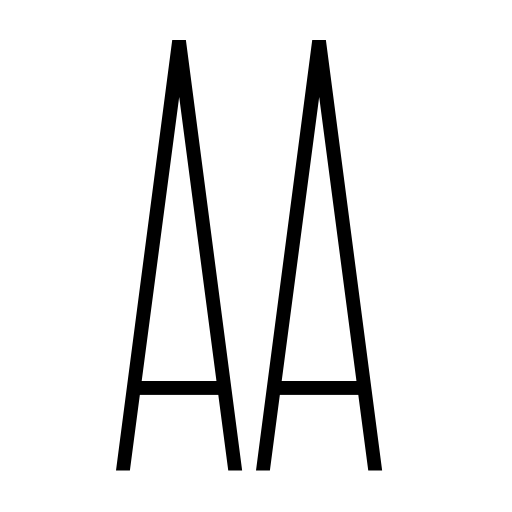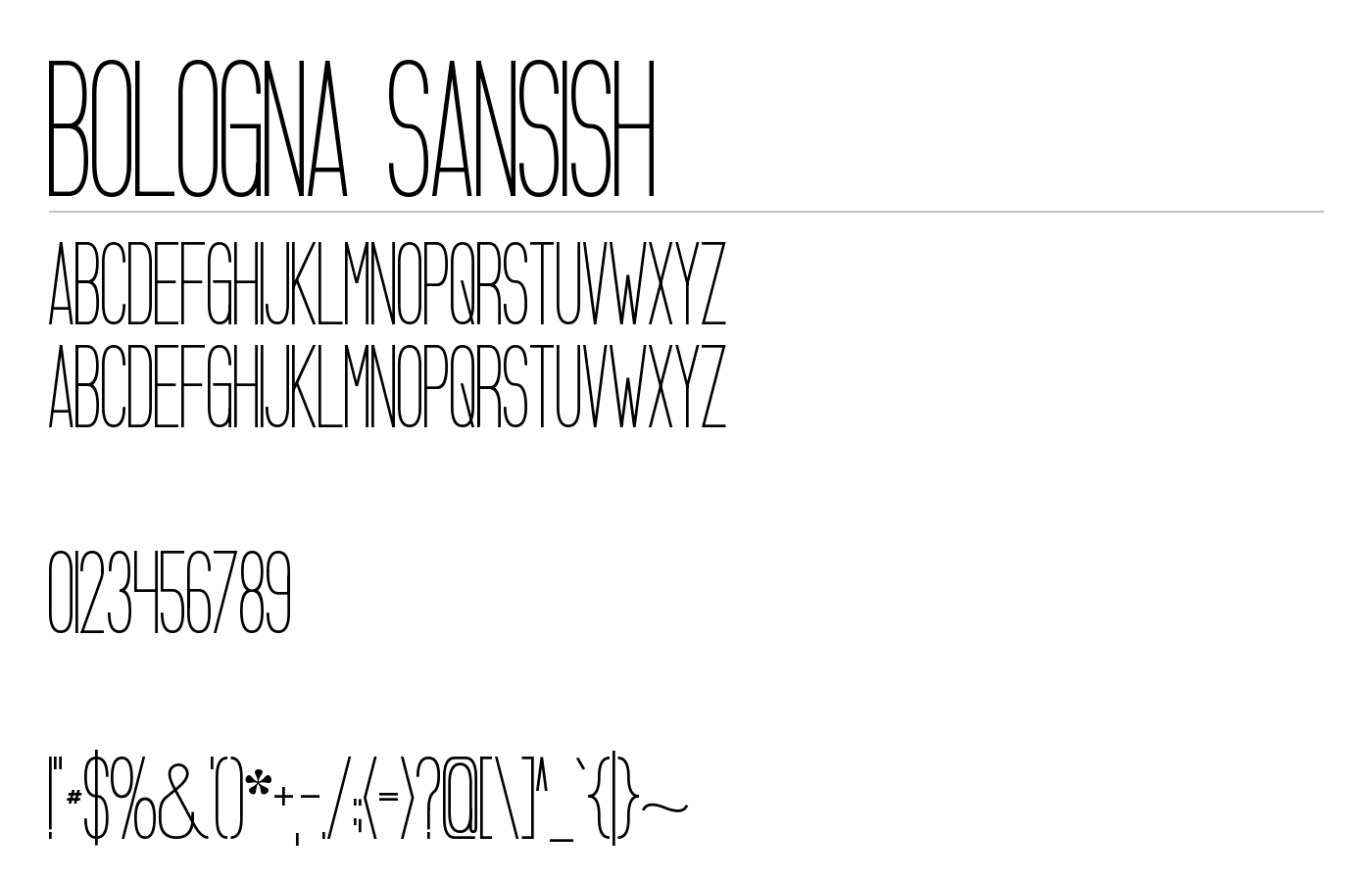
Bologna Sansish is a narrow, ultra-light sans serif font with a modern and minimalist vibe. Its tall, slender letterforms and consistent stroke weight make it ideal for sleek, contemporary designs that need a clean yet distinctive look, perfect for headlines, logos, and editorial layouts that demand elegance without heaviness.
Bologna Sansish Font